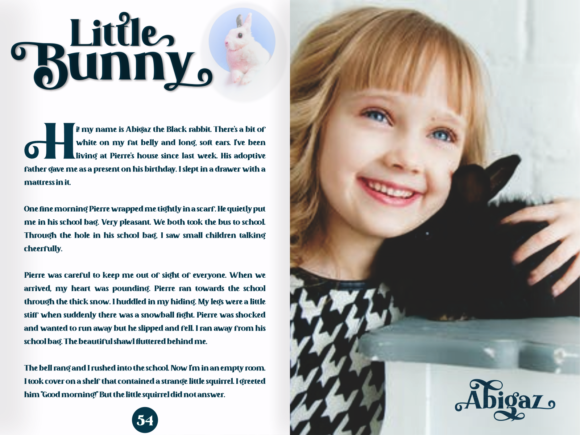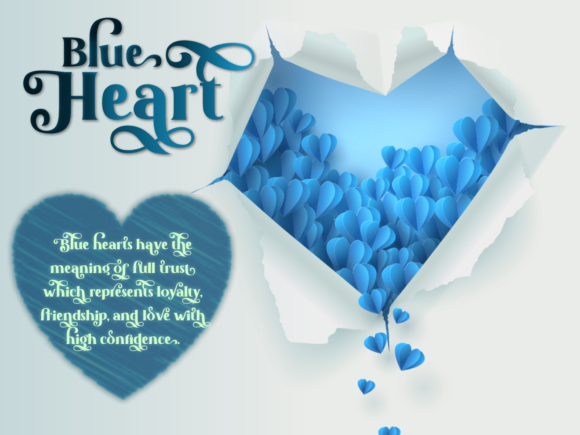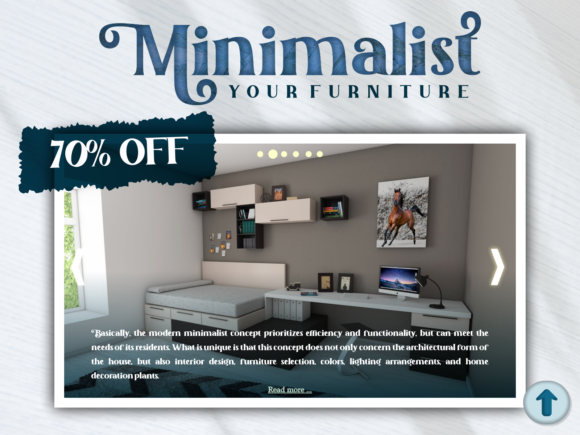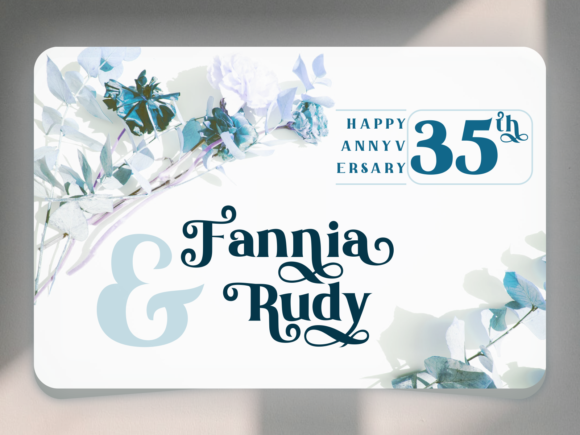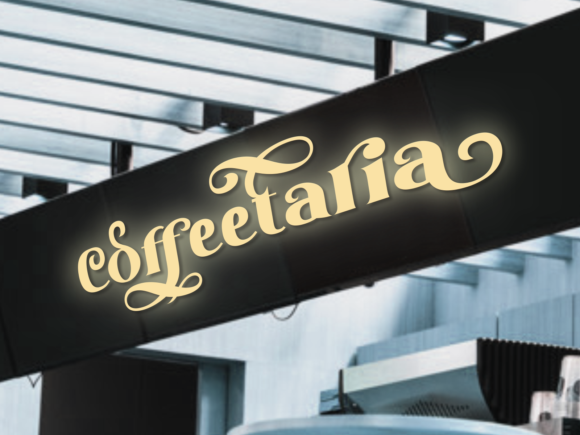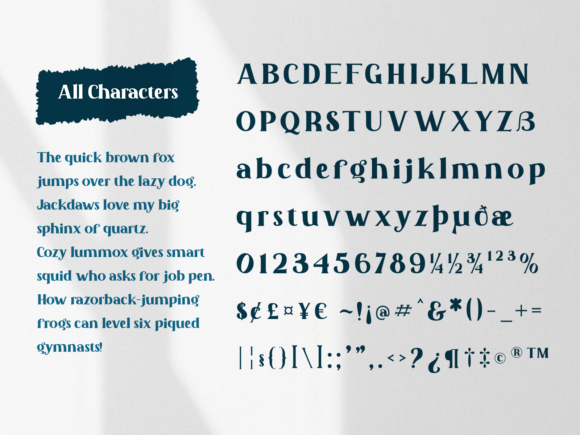
Introducing Abigaz Font: Elevate Your Designs with a Chic and Trendy Serif
In the world of typography, fonts play a crucial role in conveying the tone and personality of a design. For designers and crafters looking to add a distinct touch to their creations, Abigaz Font is an excellent choice. This chic and trendy serif font is imposing, featuring uniquely shaped letters that can effortlessly match a wide range of projects.
The Characteristics of Abigaz Font
Abigaz Font boasts a distinctive serif style that sets it apart from more traditional fonts. Its imposing presence makes it perfect for designs that require a strong, confident look. The uniquely shaped letters add a touch of elegance and sophistication, making it suitable for a variety of applications, from luxury branding to high-end packaging.
What Makes Abigaz Font Stand Out
So, what makes Abigaz Font stand out from the crowd? Here are a few key features:
- Unique Letterforms: Each letter in the Abigaz Font has a distinctive shape, making it instantly recognizable.
- Serif Style: The serif style adds a touch of classic elegance to any design.
- Imposing Presence: Abigaz Font commands attention, making it perfect for headlines, titles, and other prominent design elements.
- Versatility: Despite its strong personality, Abigaz Font can be paired with a wide range of fonts and design styles.
How to Use Abigaz Font in Your Designs
Abigaz Font is an incredibly versatile font that can be used in a variety of design applications. Here are a few ideas to get you started:
- Branding and Logo Design: Use Abigaz Font to create a strong, memorable logo that reflects your brand’s personality.
- Packaging Design: Add a touch of luxury to your packaging with Abigaz Font, perfect for high-end products.
- Advertising and Marketing: Use Abigaz Font to create eye-catching headlines and titles that grab attention.
- Web Design: Pair Abigaz Font with a clean, modern sans-serif font for a stylish and sophisticated website.
Tips for Pairing Abigaz Font with Other Fonts
While Abigaz Font is stunning on its own, it can also be paired with other fonts to create a unique and harmonious design. Here are a few tips for pairing Abigaz Font:
- Contrast with Sans-Serif Fonts: Pair Abigaz Font with a clean sans-serif font, such as Open Sans or Lato, for a stylish contrast.
- Match with Script Fonts: Combine Abigaz Font with a elegant script font, such as Pacifico or Great Vibes, for a sophisticated look.
- Experiment with Font Sizes: Play with different font sizes to create visual interest and hierarchy in your design.
Abigaz Font is a chic and trendy serif font that can elevate your designs with its unique and imposing presence. With its versatility, elegance, and sophistication, it’s perfect for designers and crafters looking to add a distinct touch to their creations. Whether you’re working on branding, packaging, advertising, or web design, Abigaz Font is an excellent choice.